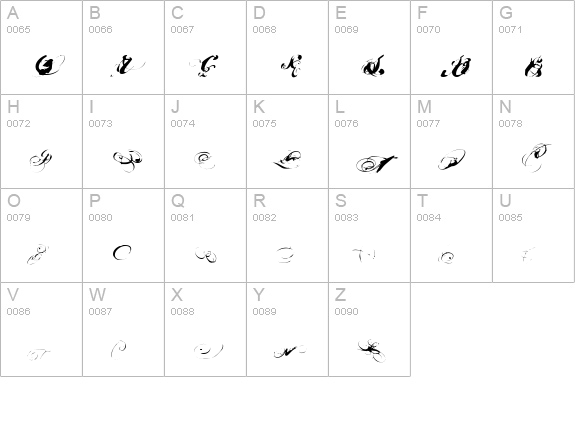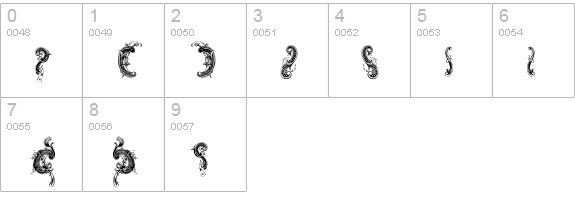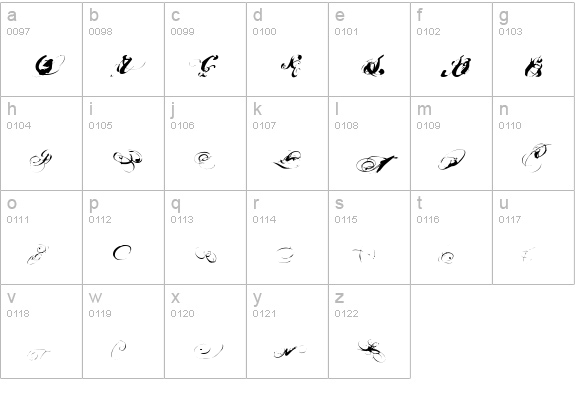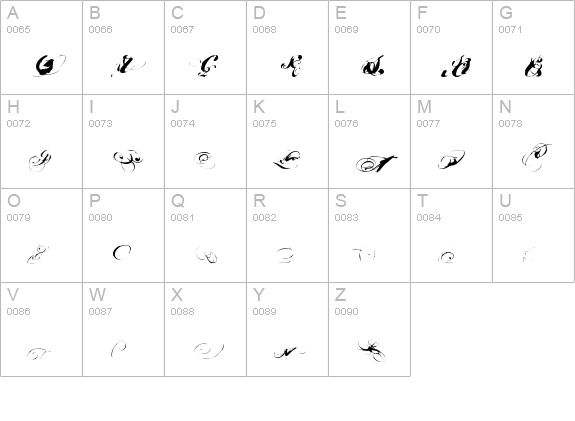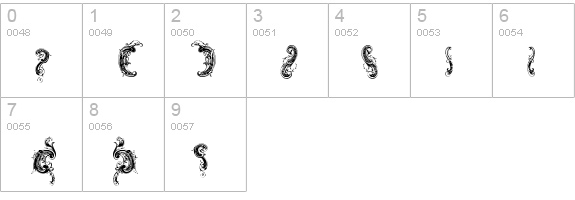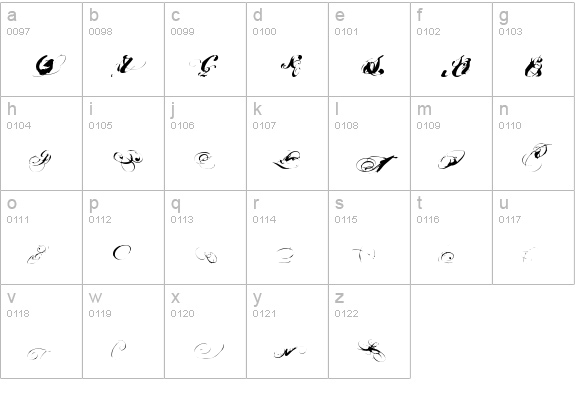
The Great Circus X font is a whimsical and playful display typeface that will add a touch of magic to your designs. With its bold lines and lively curves, this font captures the essence of a circus in all its grandeur and excitement. Perfect for posters, invitations, and other creative projects, Great Circus X will bring a sense of fun and wonder to any design. Best of all, Great Circus X is available for free download at FontsMarket.com. So, whether you're a professional designer or just looking to add a touch of flair to your personal projects, this font is a fantastic choice. Don't miss out on the opportunity to bring the magic of the circus to your designs with the stunning Great Circus X font. Download it today and let your creativity soar!